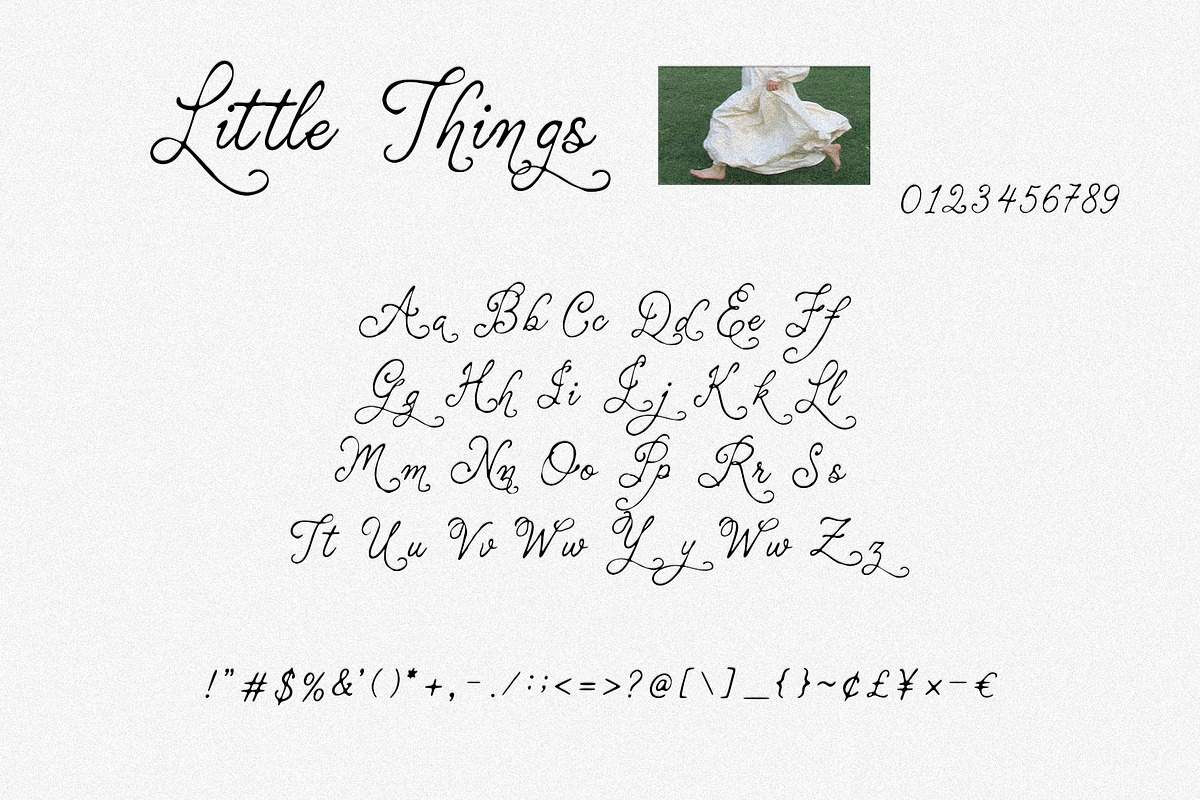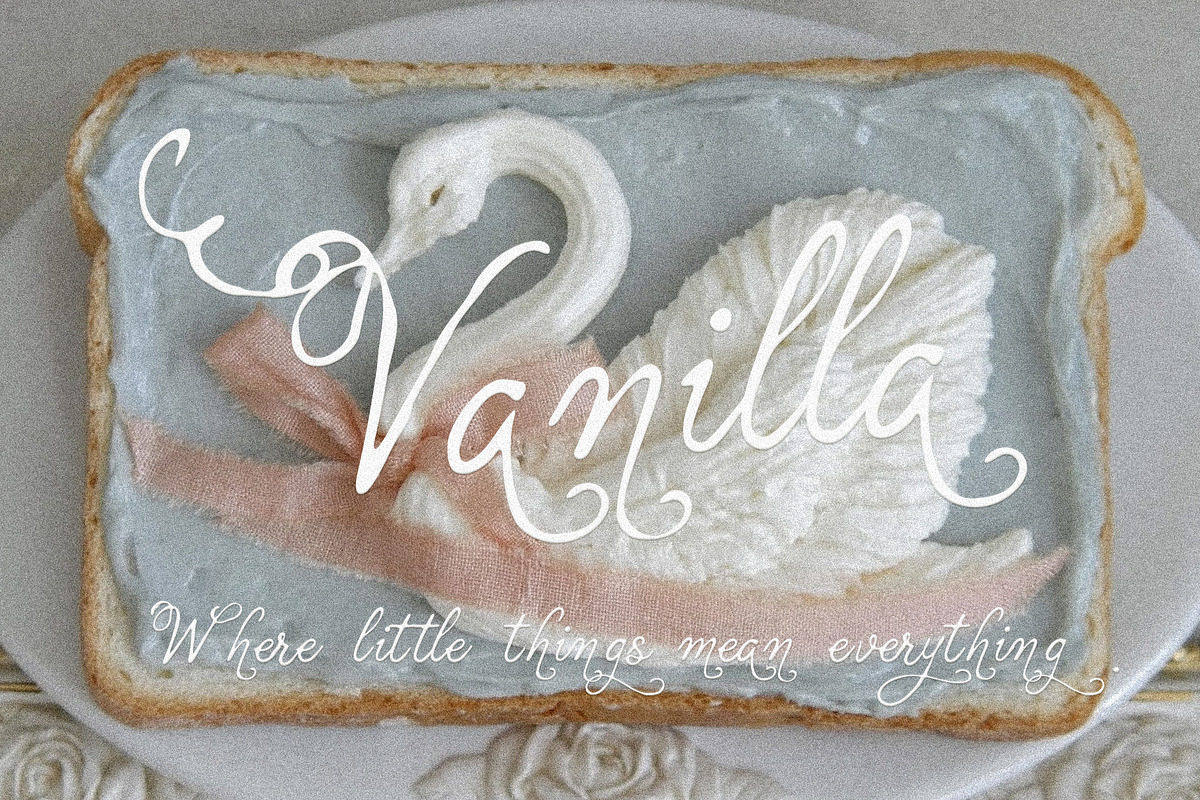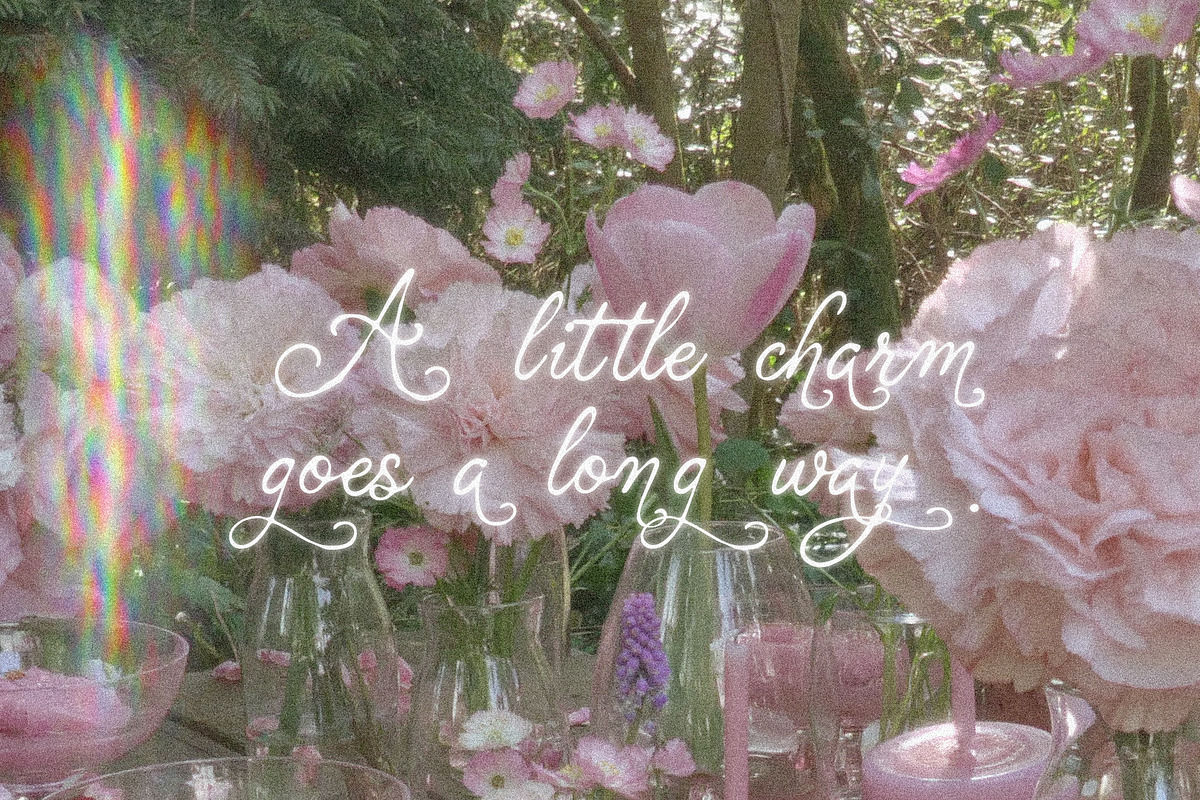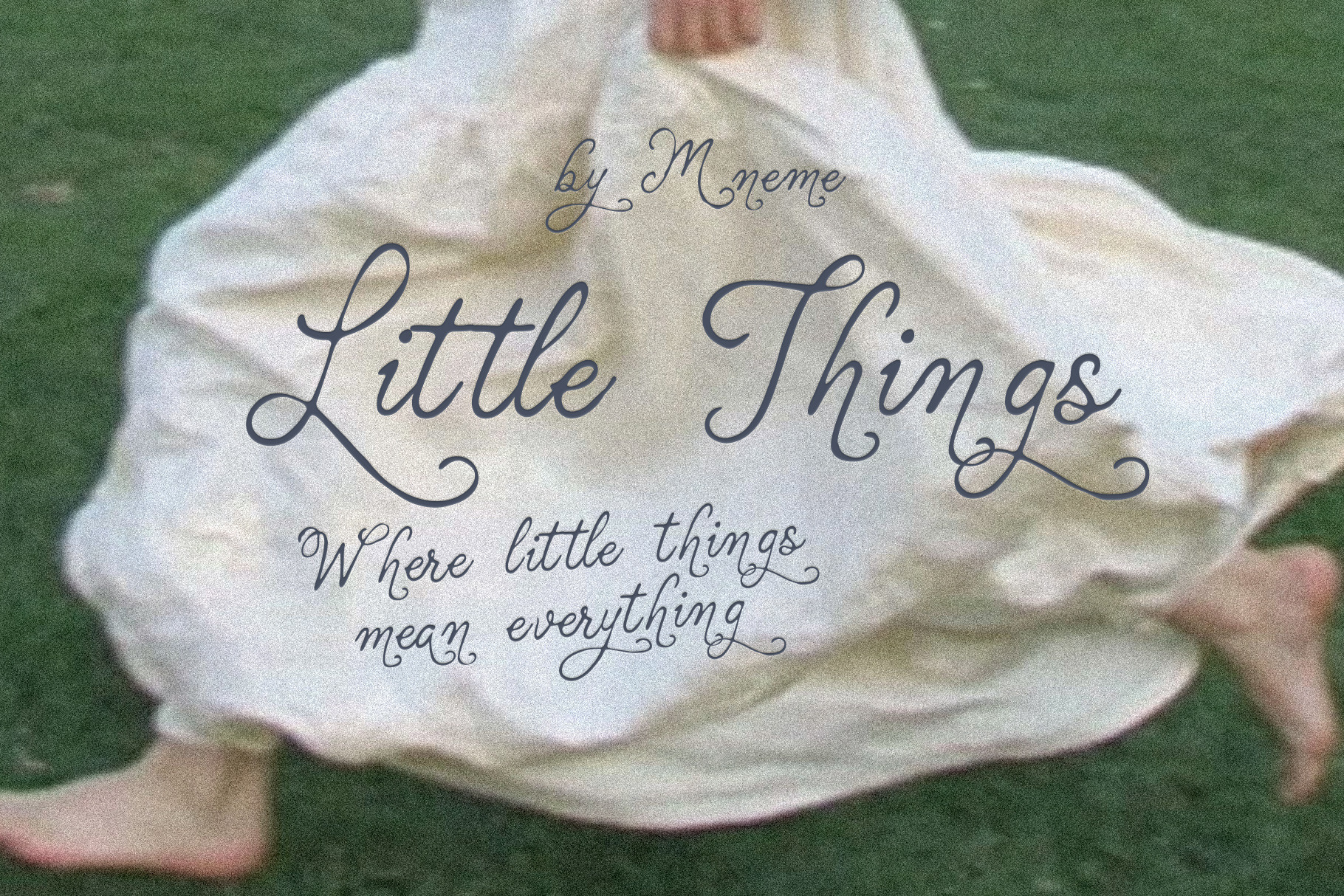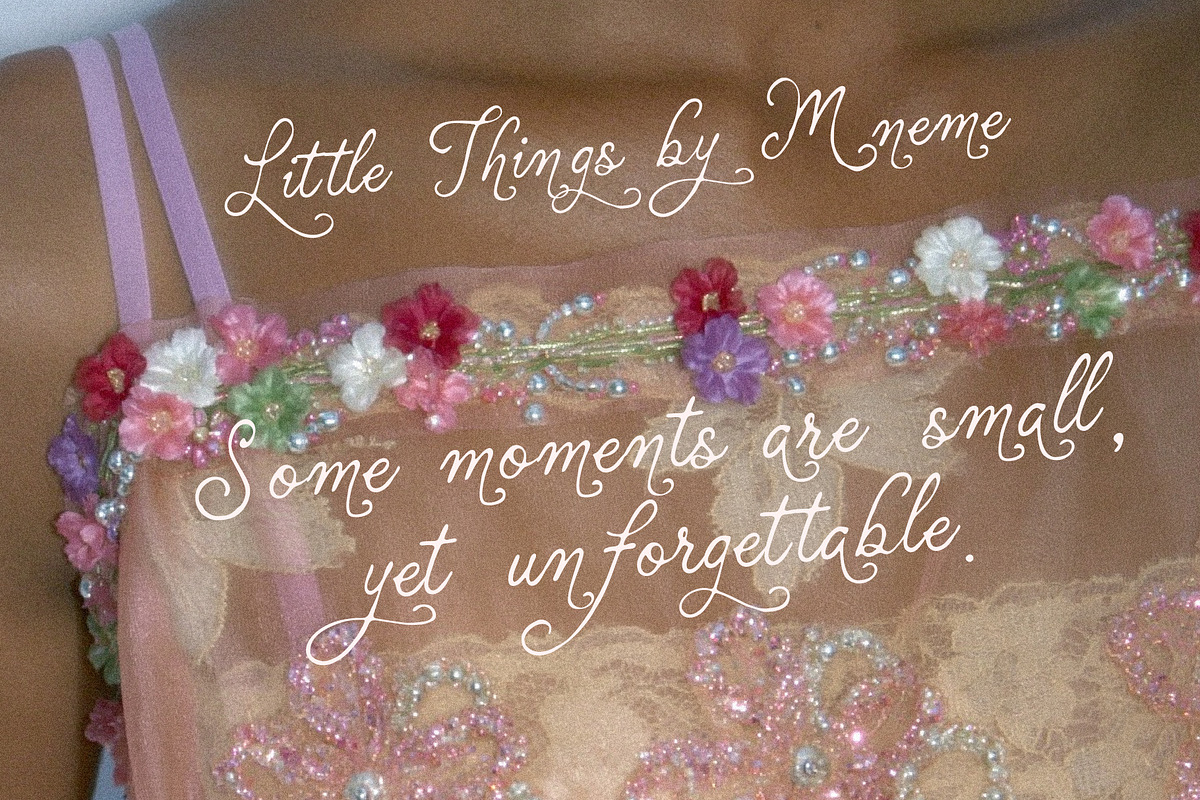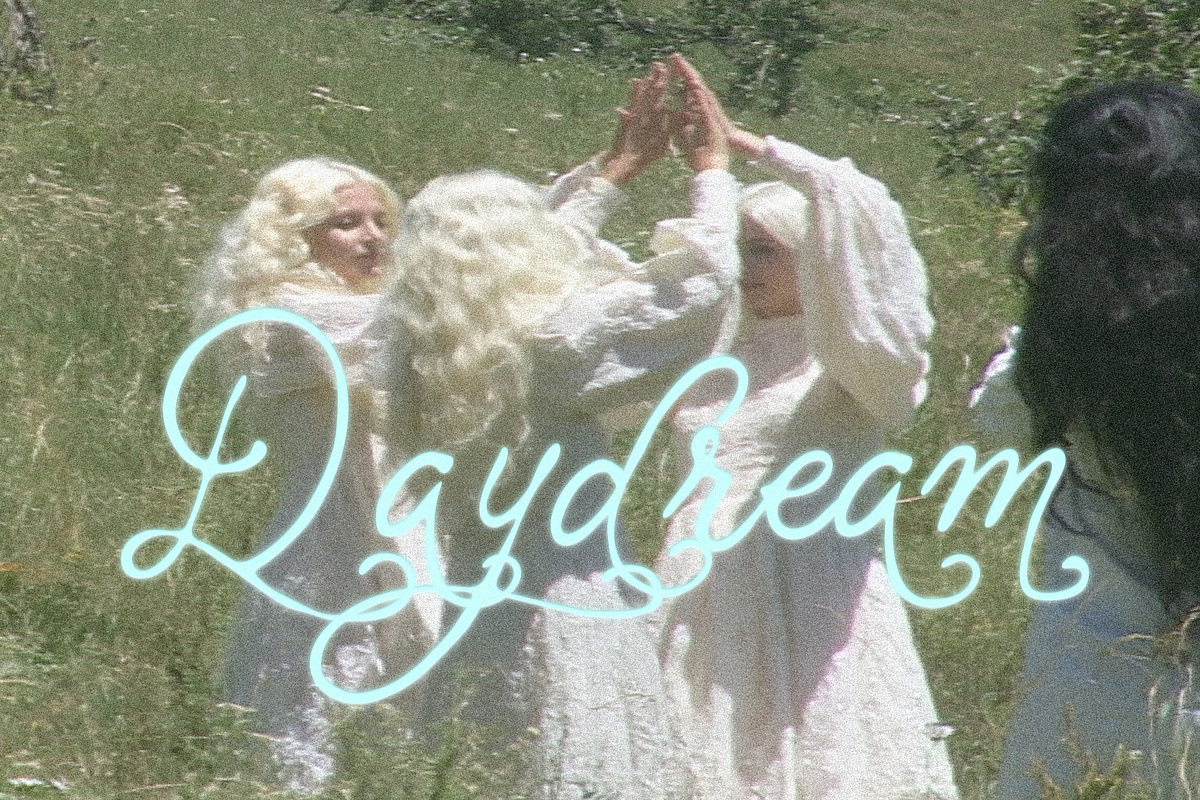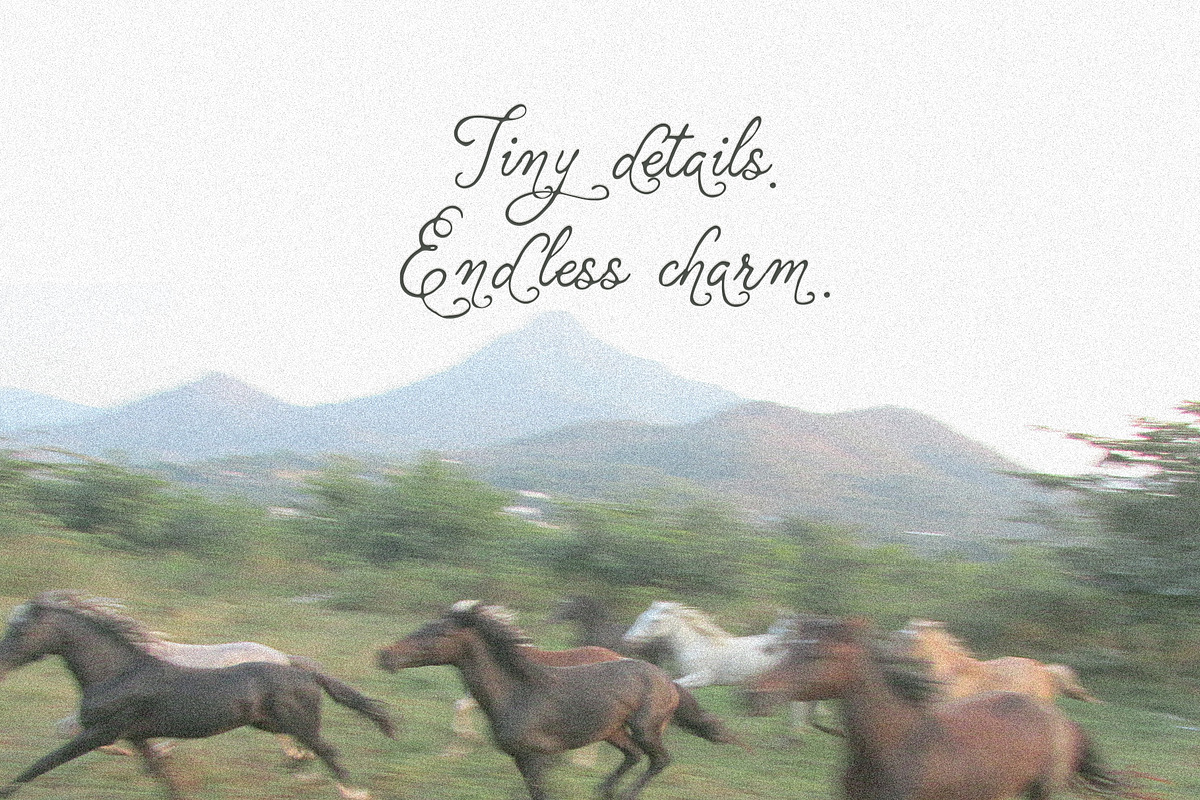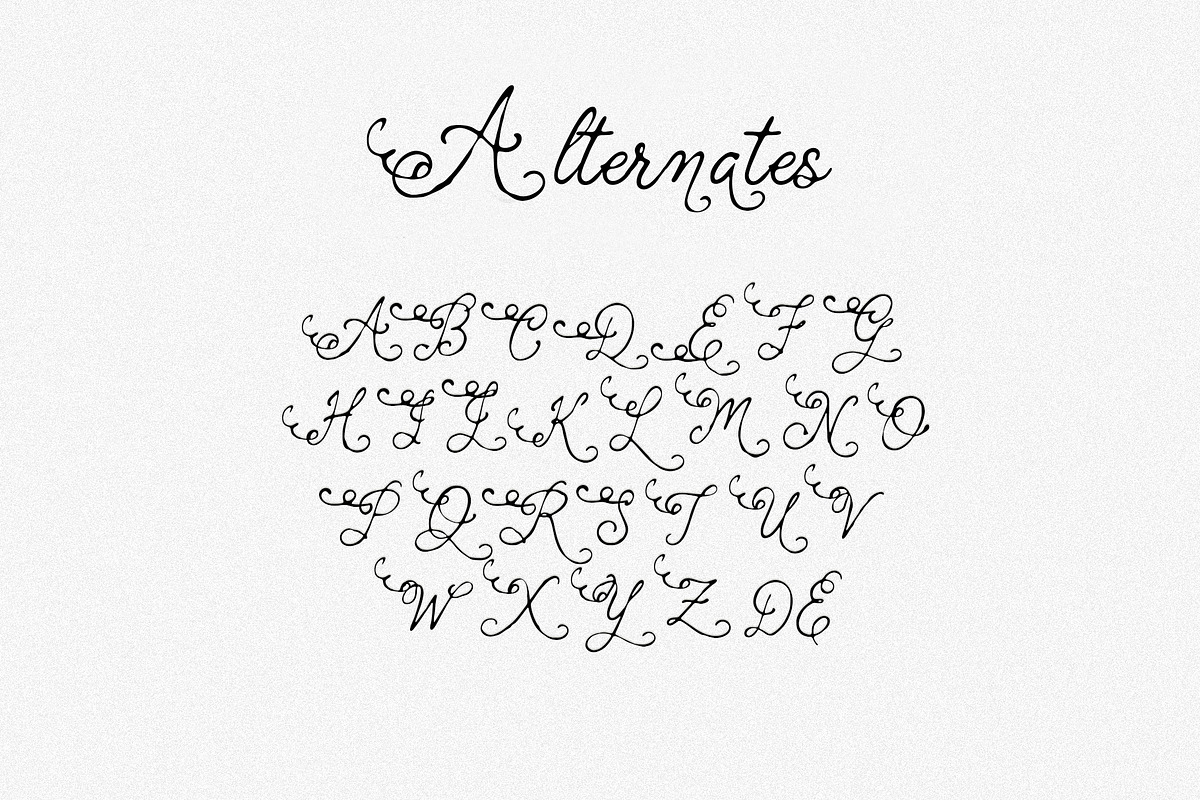
LittleThings: Whimsical Display Font
Meet LittleThings
LittleThings is a charming display typeface inspired by handwritten notes, vintage stationery, and the beauty hidden in everyday details.
With delicate swashes, soft curves, and decorative flourishes, this font brings warmth, nostalgia, and gentle personality into every design. It balances playful elegance with handcrafted charm, making each word feel intimate and memorable.
Whether you’re designing invitations, branding, packaging, or social media content, LittleThings adds a sweet and timeless touch.
Perfect for projects that need softness, charm, and emotional connection.
Invitations
Greeting cards
Branding & logos
Beauty packaging
Posters
Scrapbooking
Stationery
Handmade products
Editorial layouts